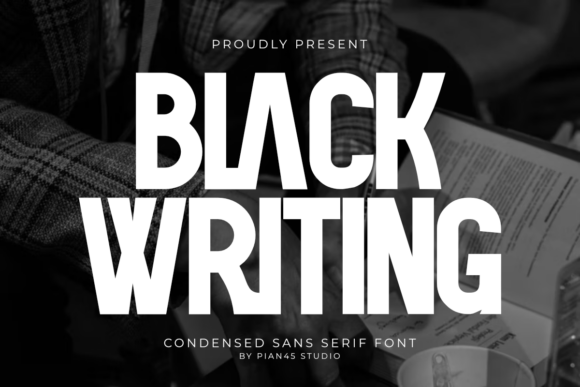
Black Writing Font: A Powerful and Versatile Sans Serif Font
In the world of typography, a well-designed font can make all the difference in creating a lasting impression. One such font that has gained significant attention in recent times is the Black Writing Font. This striking condensed sans serif font combines a clean, minimalist aesthetic with a powerful visual presence, making it perfect for a wide range of design applications.
What is Black Writing Font?
Black Writing Font is a modern sans serif font that boasts a sleek and bold design. Its condensed letterforms make it ideal for creating strong, attention-grabbing headlines, logos, and branding. The font’s clean and minimalist aesthetic ensures that it remains highly legible, even at smaller font sizes.
Key Features of Black Writing Font
- Condensed letterforms: The font’s condensed design makes it perfect for creating strong, attention-grabbing headlines and titles.
- Clean and minimalist aesthetic: The font’s clean design ensures that it remains highly legible, even at smaller font sizes.
- Highly legible: The font’s clear and simple letterforms make it easy to read, even in long blocks of text.
- Versatile: The font is suitable for a wide range of design applications, including posters, magazine layouts, and website design.
- Modern and professional feel: The font’s sleek and bold design gives it a modern and professional feel, making it perfect for businesses and brands looking to create a strong visual identity.
Use Cases for Black Writing Font
Black Writing Font is a versatile font that can be used in a wide range of design applications. Here are some examples:
- Headlines and titles: The font’s condensed design and bold letterforms make it perfect for creating strong, attention-grabbing headlines and titles.
- Logos and branding: The font’s clean and minimalist aesthetic makes it ideal for creating modern and professional logos and branding.
- Posters and flyers: The font’s bold design and high legibility make it perfect for creating eye-catching posters and flyers.
- Magazine layouts: The font’s clean design and versatility make it suitable for use in magazine layouts, where a modern and professional feel is key.
- Website design: The font’s highly legible and versatile nature makes it ideal for use in website design, where a clear and professional visual identity is essential.
Benefits of Using Black Writing Font
There are several benefits to using Black Writing Font in your design projects. Here are some of the key advantages:
- Increased legibility: The font’s clear and simple letterforms make it easy to read, even in long blocks of text.
- Improved visual impact: The font’s bold design and condensed letterforms make it perfect for creating strong, attention-grabbing headlines and titles.
- Versatility: The font is suitable for use in a wide range of design applications, from posters and flyers to website design and magazine layouts.
- Professional feel: The font’s sleek and modern design gives it a professional feel, making it perfect for businesses and brands looking to create a strong visual identity.
Tips for Using Black Writing Font
Here are some tips for using Black Writing Font effectively in your design projects:
- Use it sparingly: The font’s bold design and condensed letterforms make it perfect for creating strong, attention-grabbing headlines and titles. Use it sparingly to avoid overwhelming the reader.
- Pair it with other fonts: The font’s clean and minimalist aesthetic makes it easy to pair with other fonts. Experiment with different font combinations to create a unique visual identity.
- Adjust the font size: The font’s highly legible design makes it suitable for use at a wide range of font sizes. Experiment with different font sizes to find the one that works best for your design.
In conclusion, Black Writing Font is a powerful and versatile sans serif font that combines a clean, minimalist aesthetic with a powerful visual presence. Its sleek, bold letterforms and efficient spacing make it perfect for creating strong, attention-grabbing headlines, logos, and branding. The font’s highly legible and versatile nature also makes it ideal for posters, magazine layouts, and website design, where a modern and professional feel is key.